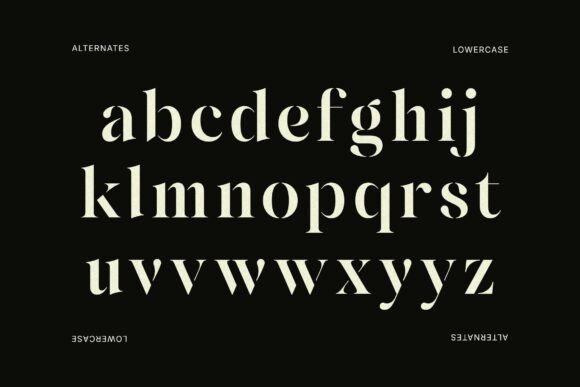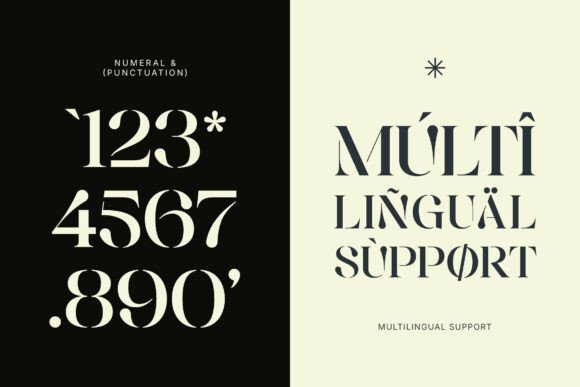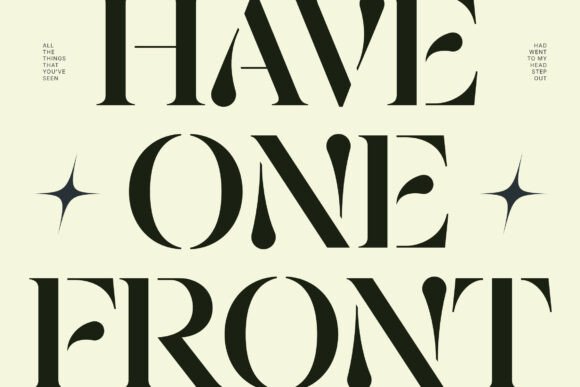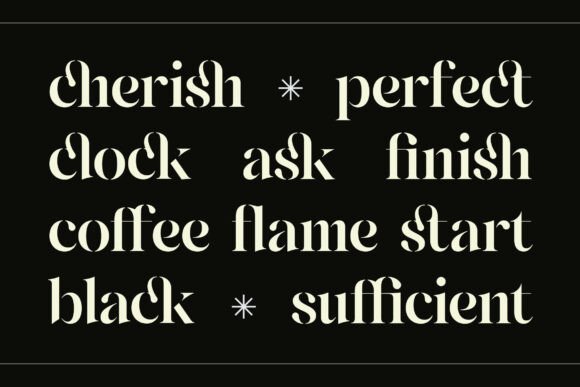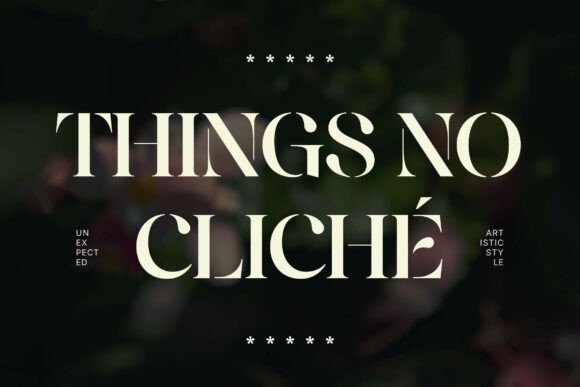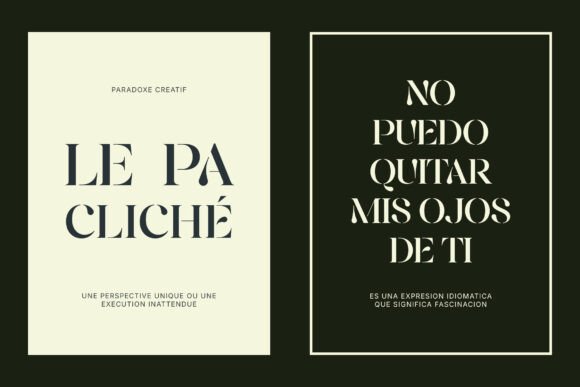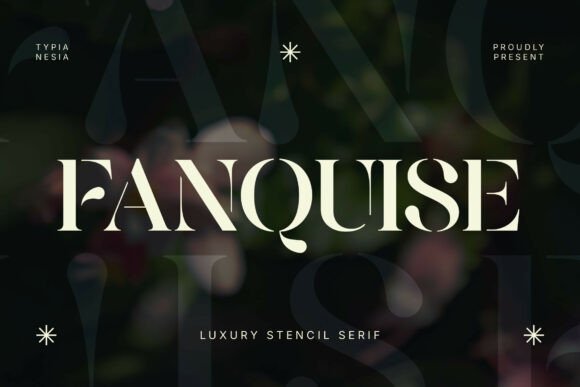
Fanquise Font: Elevate Your Designs with Luxury and Elegance
In the world of typography, a font can make or break the visual appeal of a design. For designers and crafters seeking to add a touch of luxury and sophistication to their creative projects, the Fanquise Font is an exceptional choice. This stunning luxury stencil serif font is meticulously designed to bring an unparalleled level of elegance and style to a wide range of applications.
The Distinctive Features of Fanquise Font
Fanquise Font is distinguished by its unique, stylish cut-out details within its serifs. This distinctive feature gives the font a modern and artistic appeal that effortlessly stands out in any design. The cut-out serifs add a level of refinement and sophistication, making Fanquise ideal for high-end branding, exclusive fashion editorials, luxury product packaging, and more.
One of the key benefits of Fanquise Font is its versatility. This typeface offers a broad range of alternate characters for both uppercase and lowercase letters, along with comprehensive numeral and punctuation support. Additionally, Fanquise boasts extensive multilingual capabilities, providing immense creative freedom to designers and crafters. Whether you’re working on a logo design, poster, advertising campaign, refined magazine layout, or glamorous event invitation, Fanquise Font is the perfect choice.
With Fanquise Font, the design possibilities are endless. Use it to create:
- High-end branding: Establish a luxurious brand identity with Fanquise Font’s elegant and sophisticated style.
- Exclusive fashion editorials: Add a touch of glamour and sophistication to your fashion editorials with this stunning font.
- Luxury product packaging: Elevate your product packaging with Fanquise Font’s refined and artistic appeal.
- Logo design: Create a lasting impression with a custom logo designed using Fanquise Font.
- Posters and advertising campaigns: Grab attention and convey your message in style with Fanquise Font.
- Refined magazine layouts: Add a level of sophistication to your magazine layouts with this elegant font.
- Glamorous event invitations: Make a statement with Fanquise Font’s luxurious and stylish design.
Why Choose Fanquise Font?
Fanquise Font embodies a sense of refined artistry and unexpected style, making it the perfect choice for designers and crafters seeking to create impactful designs. With its:
- Unique and stylish cut-out details: Fanquise Font stands out from other fonts with its distinctive feature.
- Comprehensive character set: Access a wide range of alternate characters, numerals, punctuation, and multilingual support.
- Versatility: Use Fanquise Font in a variety of design applications, from branding to packaging.
- Elegance and sophistication: Add a touch of luxury and refinement to your designs with Fanquise Font.
In conclusion, Fanquise Font is an exceptional luxury stencil serif font that offers a unique blend of elegance, sophistication, and artistic appeal. With its versatile design, comprehensive character set, and extensive multilingual capabilities, Fanquise Font is the perfect choice for designers and crafters seeking to create impactful and timeless designs. Whether you’re working on a high-end branding project or a glamorous event invitation, Fanquise Font is sure to elevate your designs to new heights.